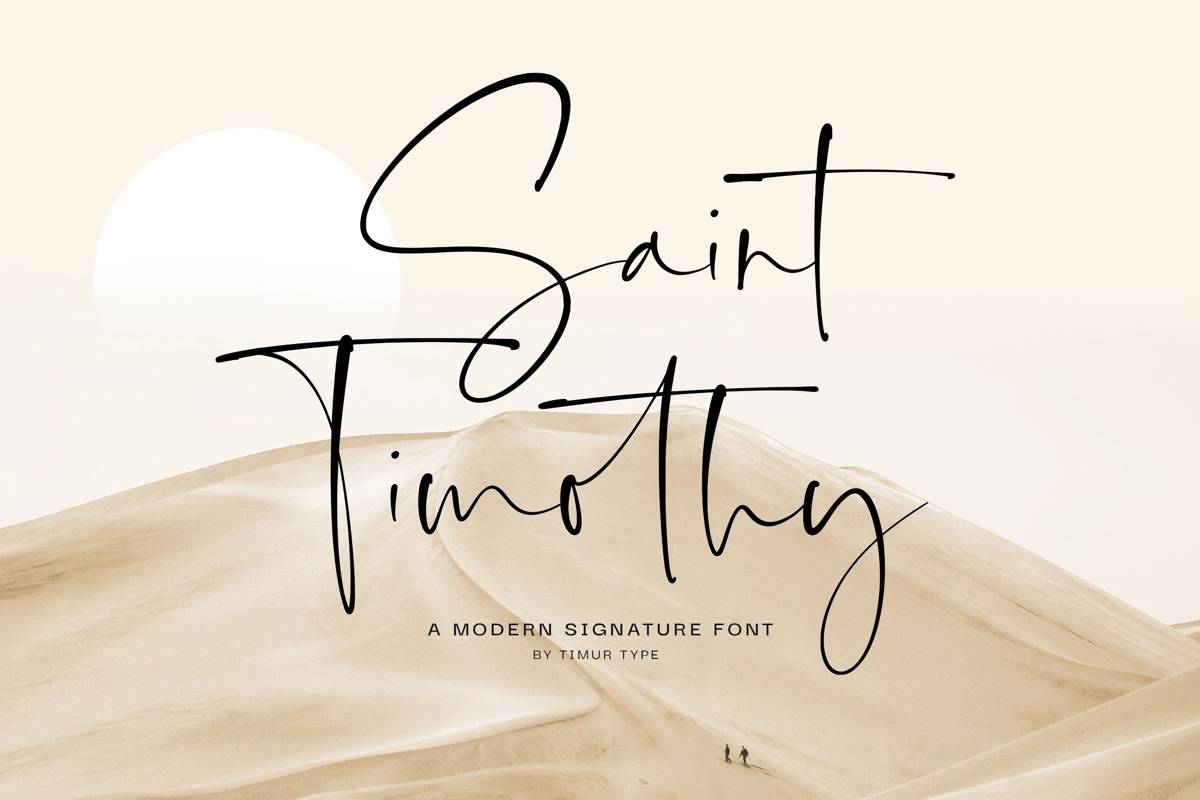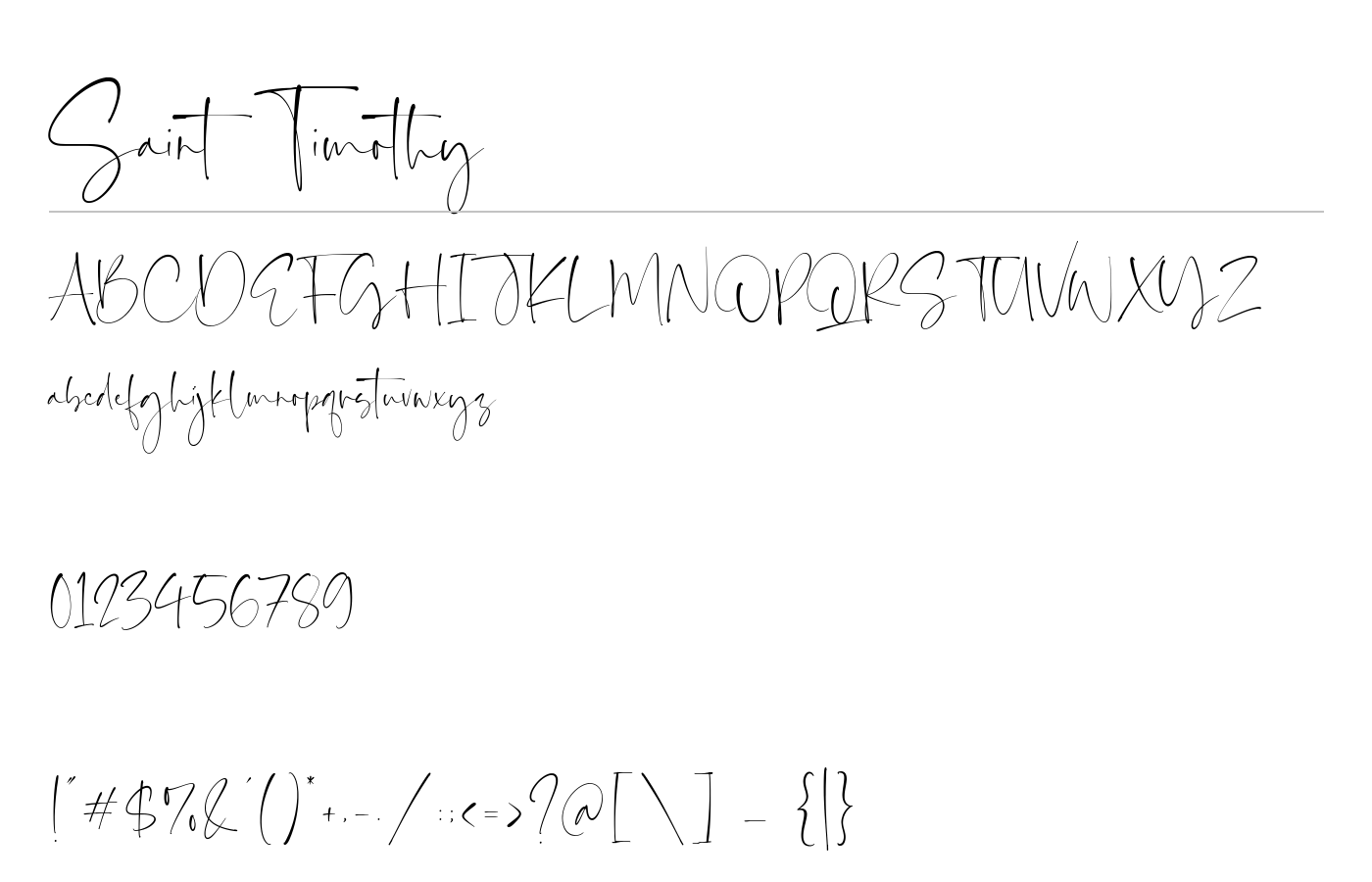
Saint Timothy is a delicate, handwritten script font with slender, flowing lines that give it a graceful and personal touch. Its tall, airy letterforms and casual elegance make it perfect for invitations, branding, and creative projects that want to convey warmth and sophistication. This font works beautifully for designs that need a stylish, modern handwritten feel with a touch of refinement.
Saint Timothy Font
About Saint Timothy Font